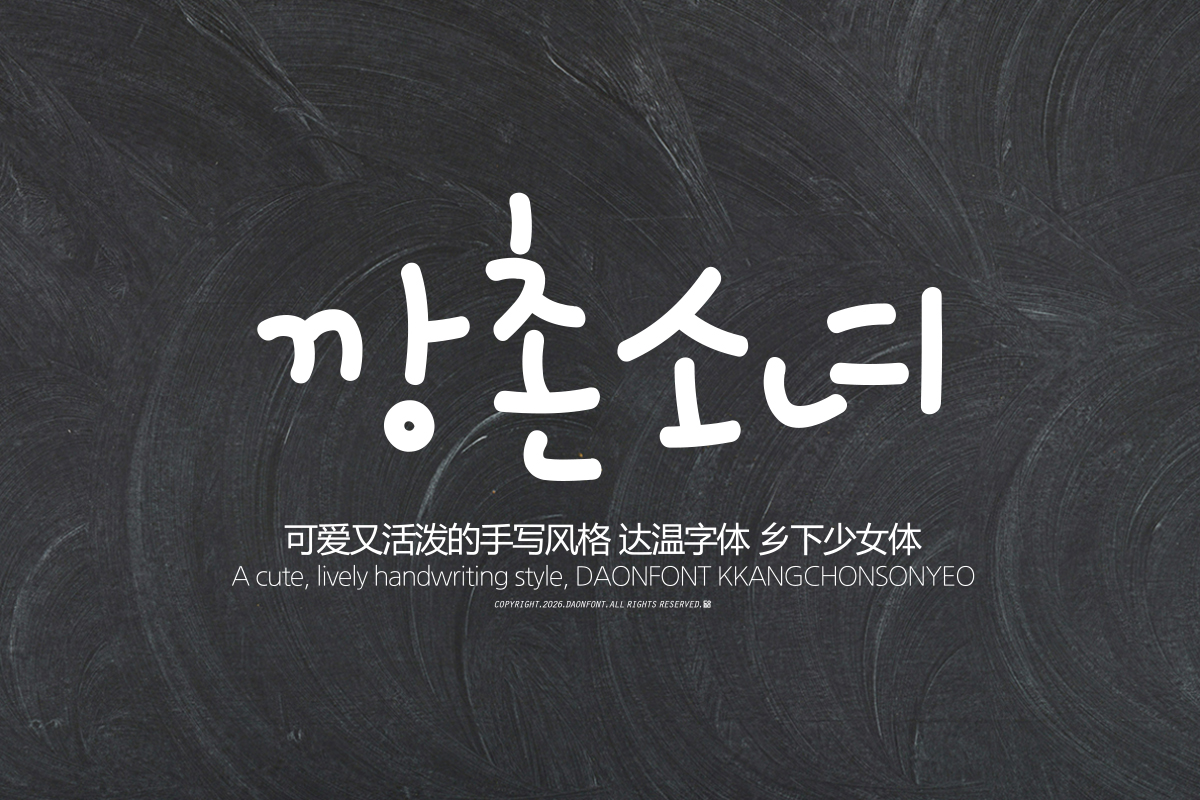
DAON KKANGCHONSONYEO(B)
'KKANGCHONSONYEO' is a Hangul typeface imbued with a warm and simple sentiment, capturing the natural texture of penmanship. Just like the pure and bright atmosphere suggested by its name, each character is infused with a warm and friendly sensibility, evoking a sense of comfort and a smile from the viewer.